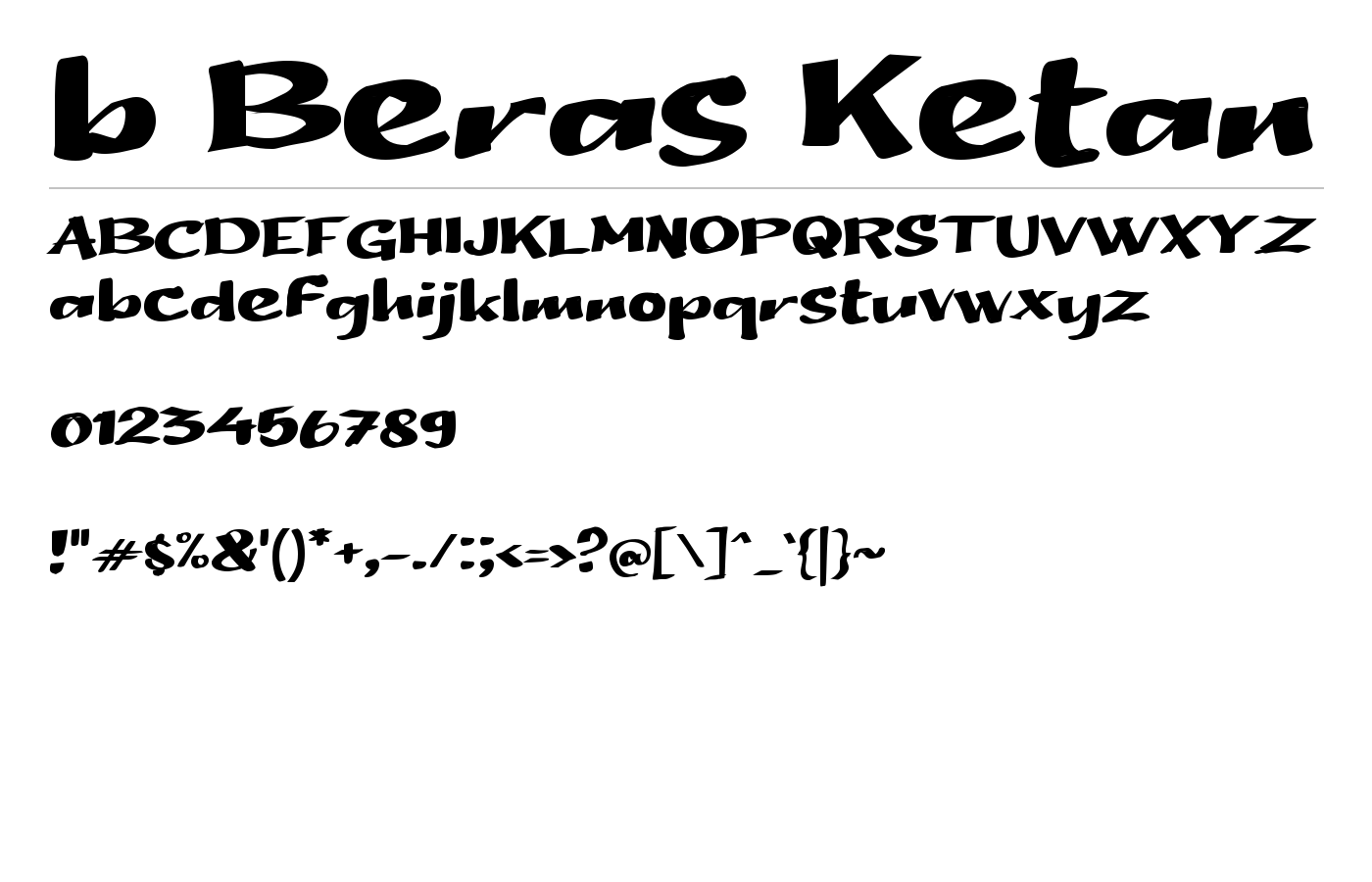
Beras Ketan is a bold, playful sans serif font with a hand-drawn, slightly calligraphic feel that lends warmth and character. Its casual strokes and dynamic letterforms make it ideal for creative projects, logos, and headlines where a friendly, energetic vibe is desired. This font works well in branding or packaging that aims to stand out with a lively and approachable style.
b Beras Ketan Font
About b Beras Ketan Font